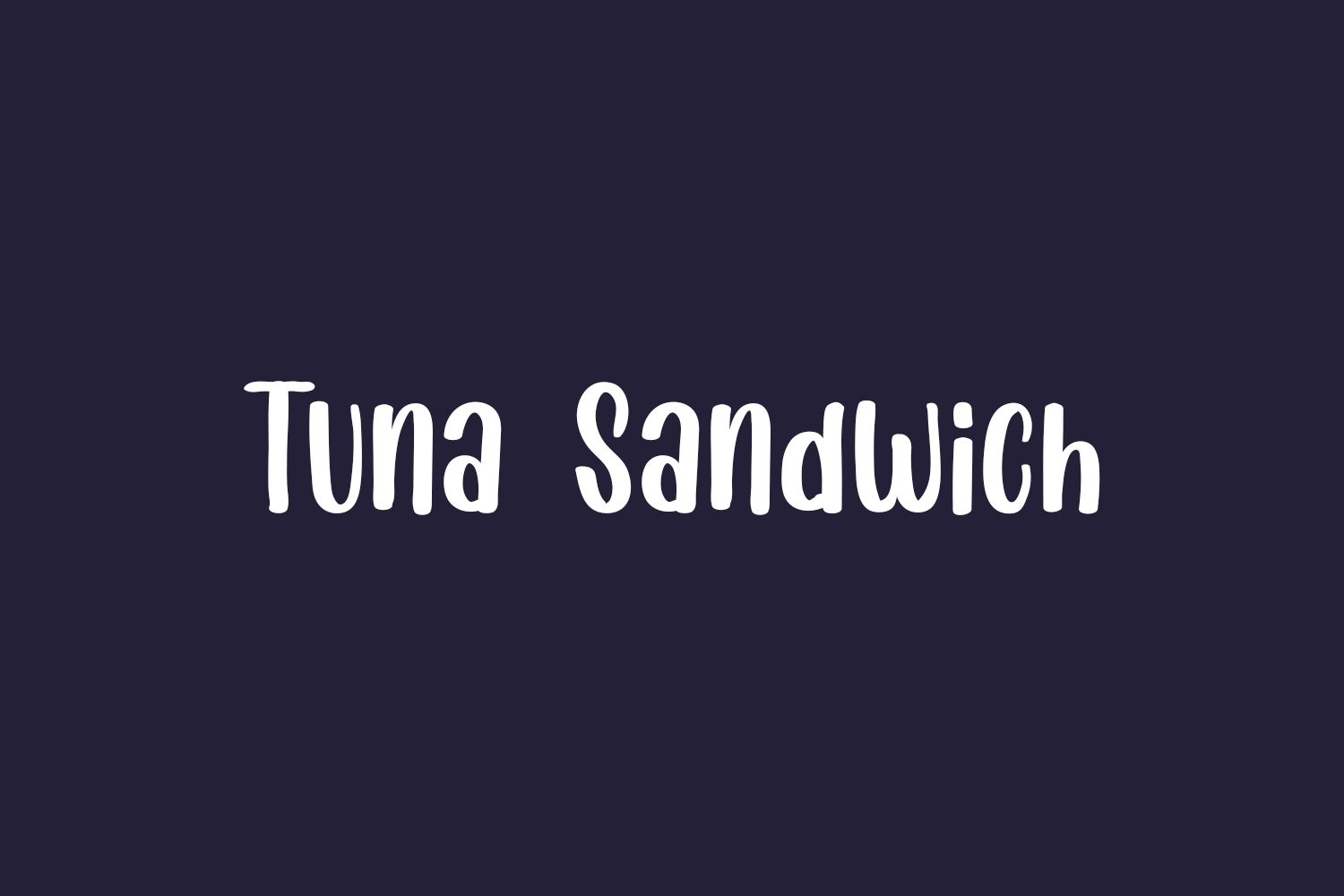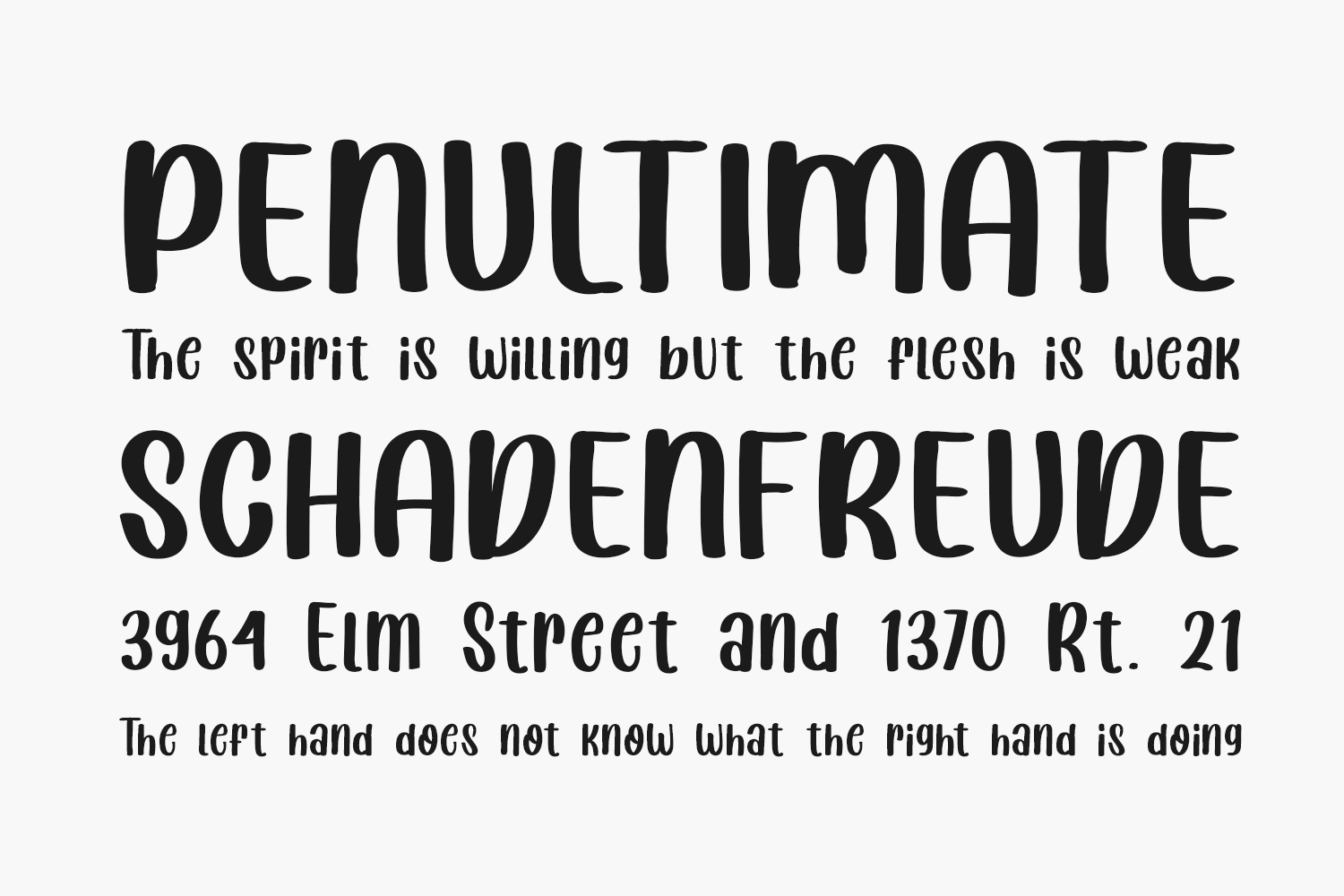
Tuna Sandwich Free Font is a delightful typeface with a playful and playful spirit. It adds a lighthearted and playful twist to any design, making it ideal for children’s activities and classroom projects. This whimsical typeface is perfect for adding a touch of fun and authenticity to any design project. With its quirky and authentic feel, Tuna Sandwich is an ideal choice for any project that requires a touch of playfulness and individuality. Its unique and playful design makes it a perfect fit for projects that require a sense of warmth and charm. So whether you’re designing for children or simply looking for a playful and unique typeface, Tuna Sandwich is the perfect choice. Bring a touch of whimsy and authenticity to your designs with Tuna Sandwich. Download the font for free if you need it for personal use or purchase the full version for commercial use.